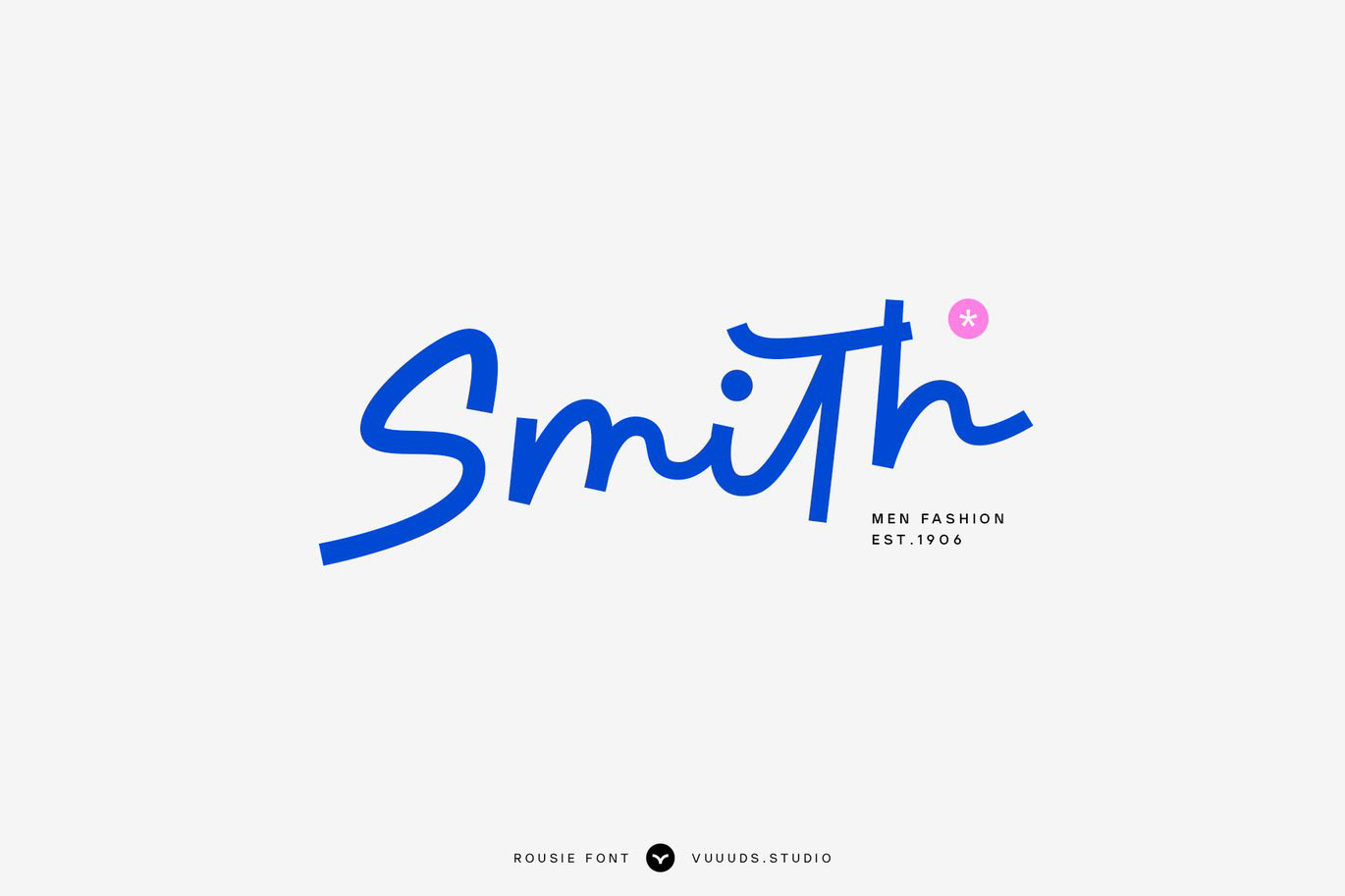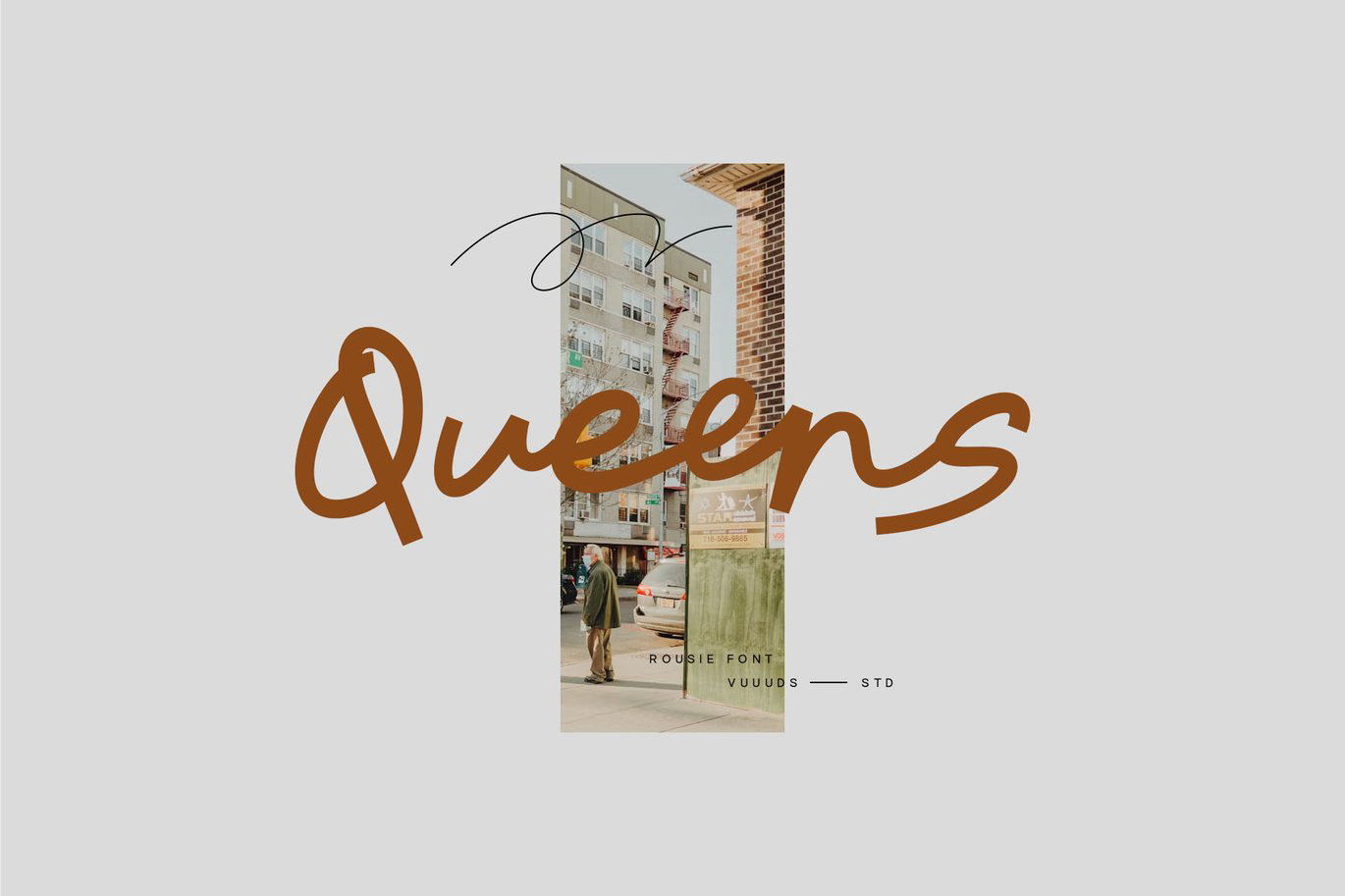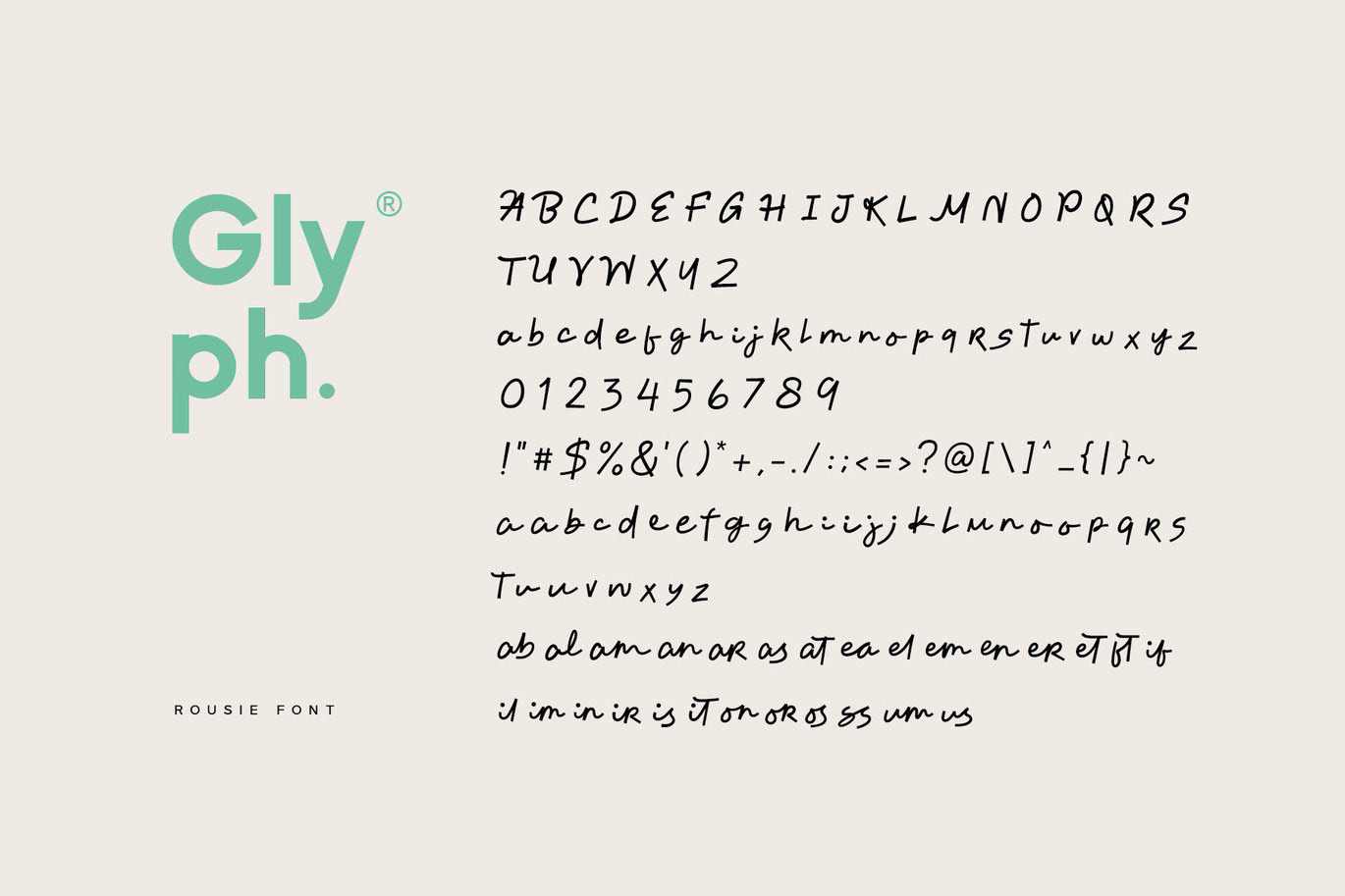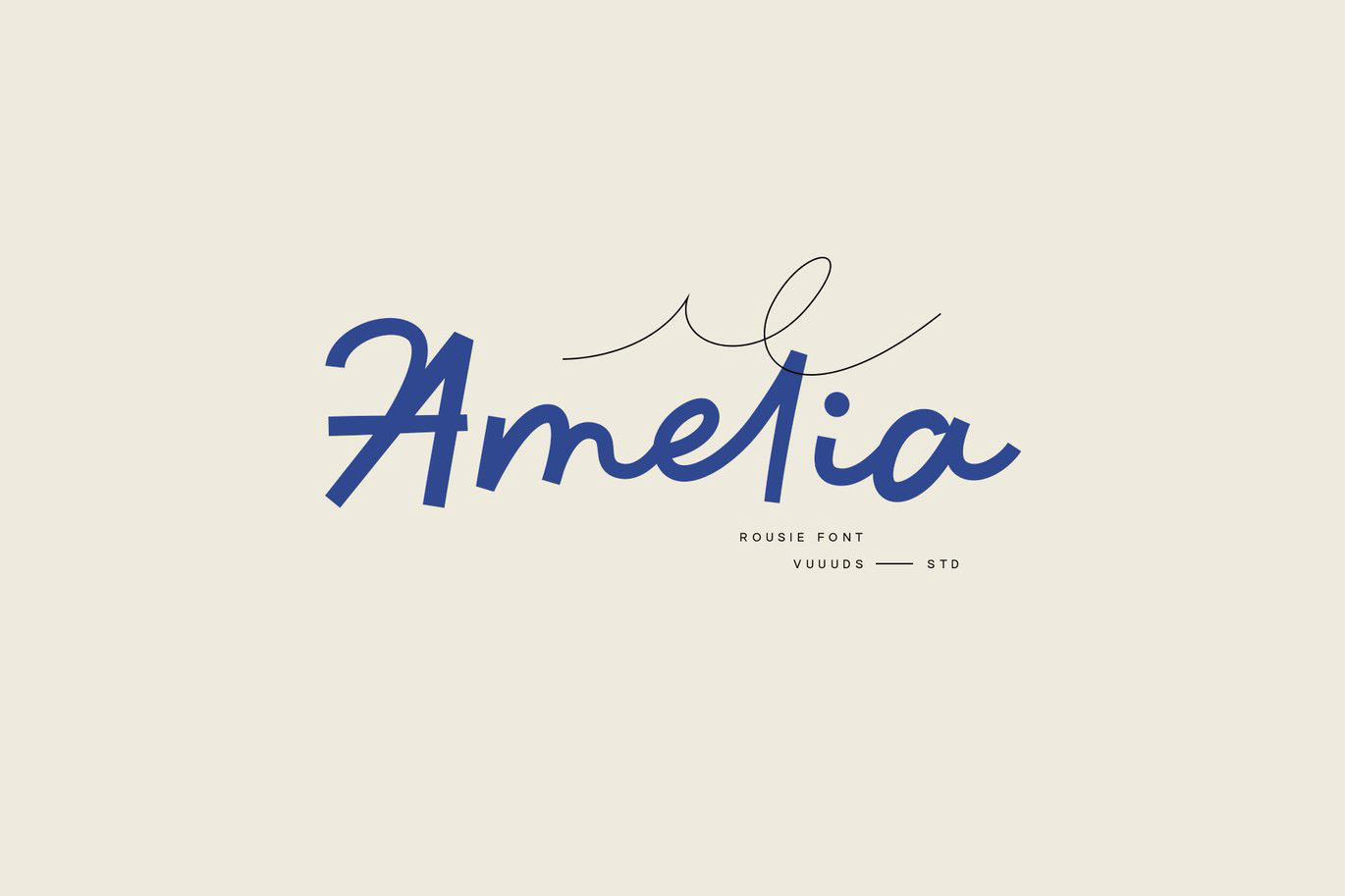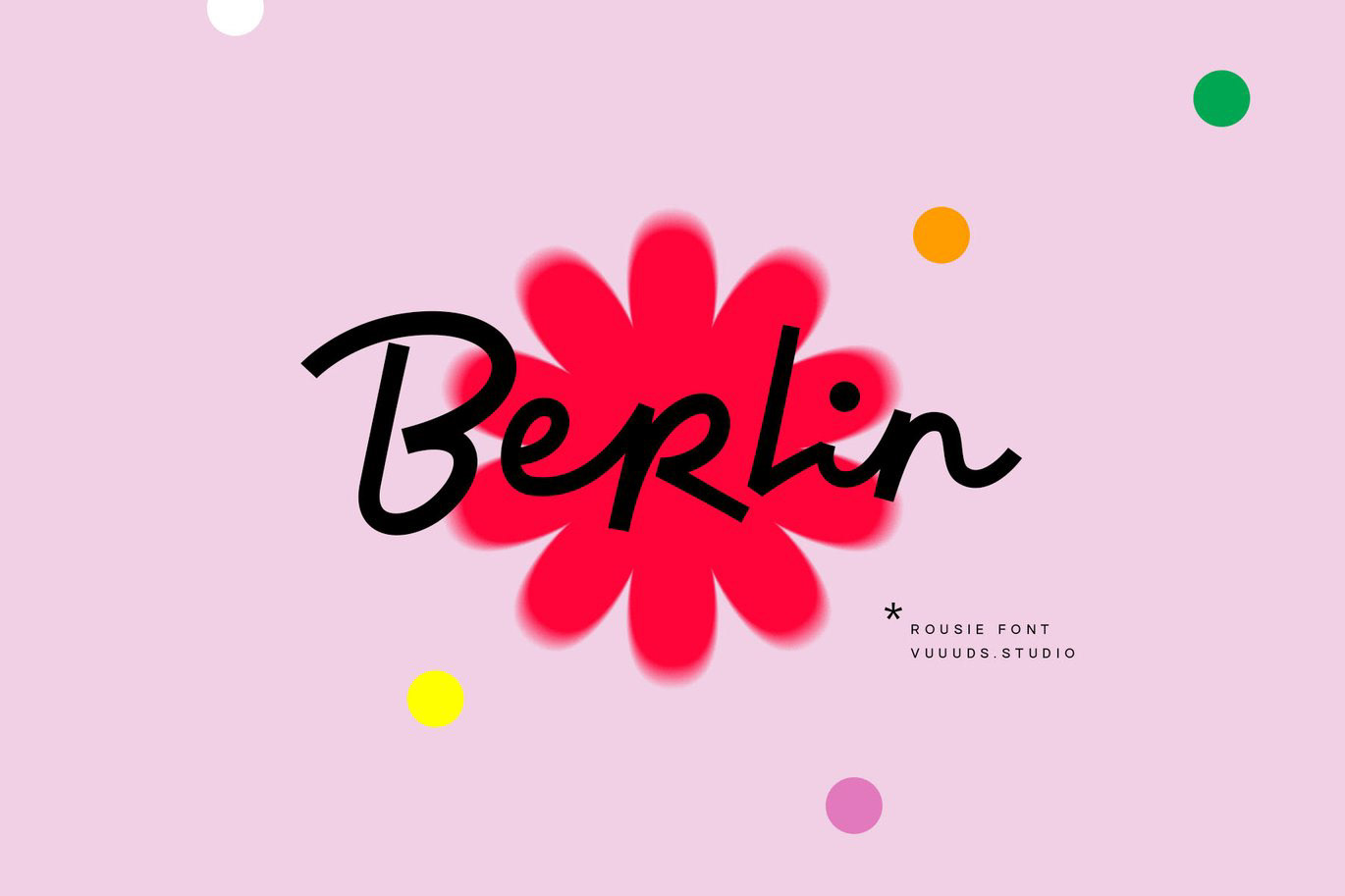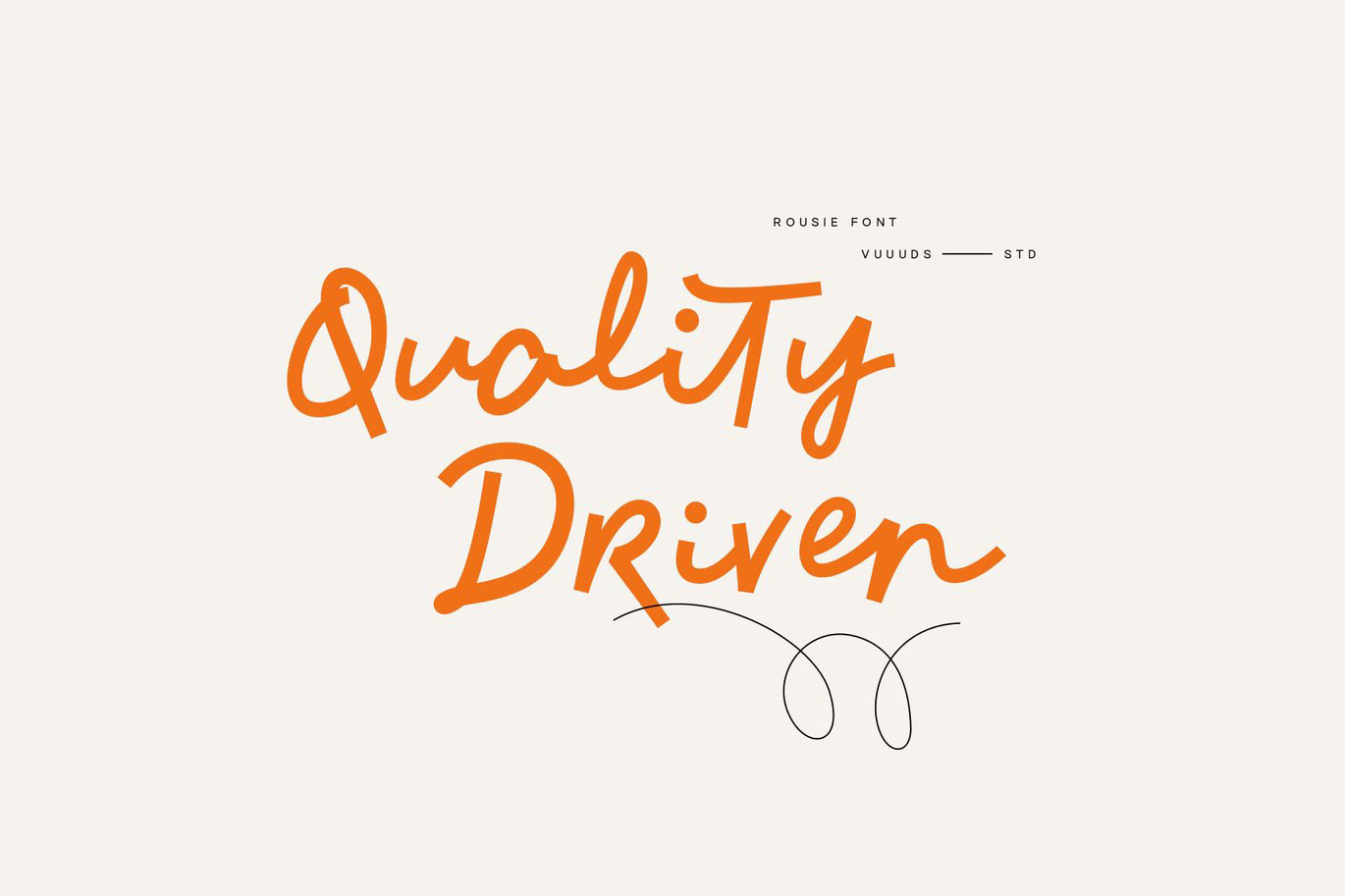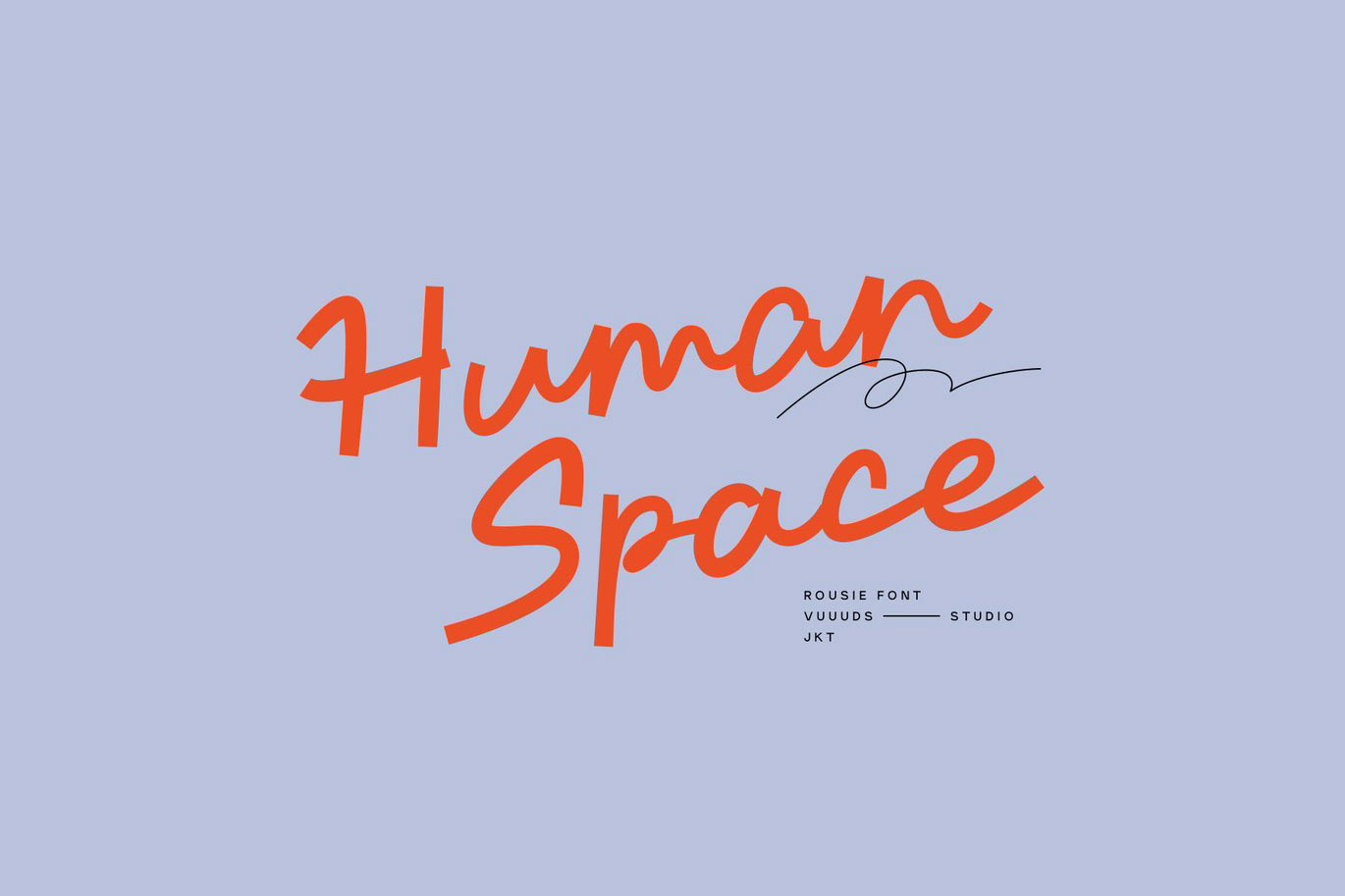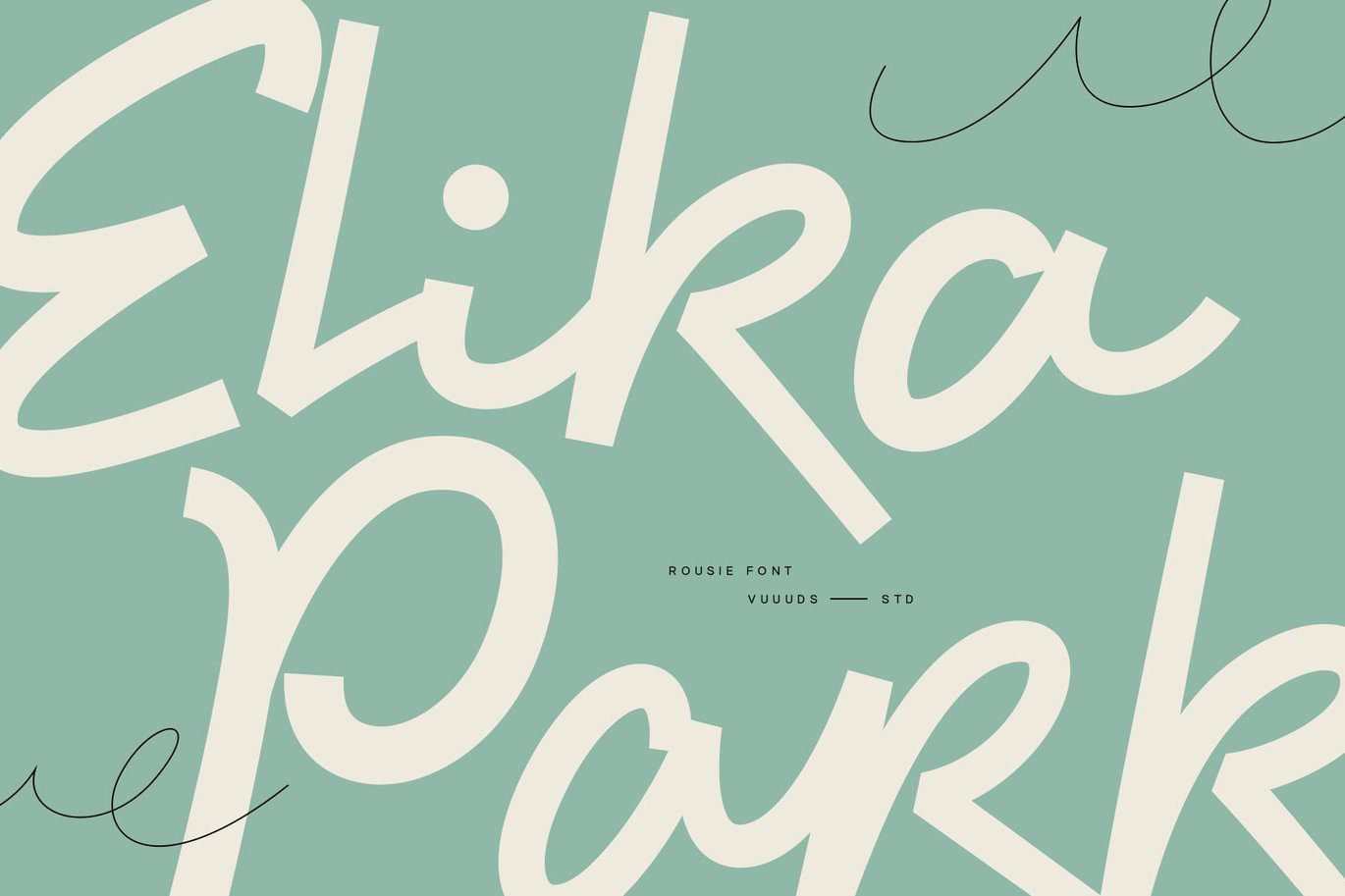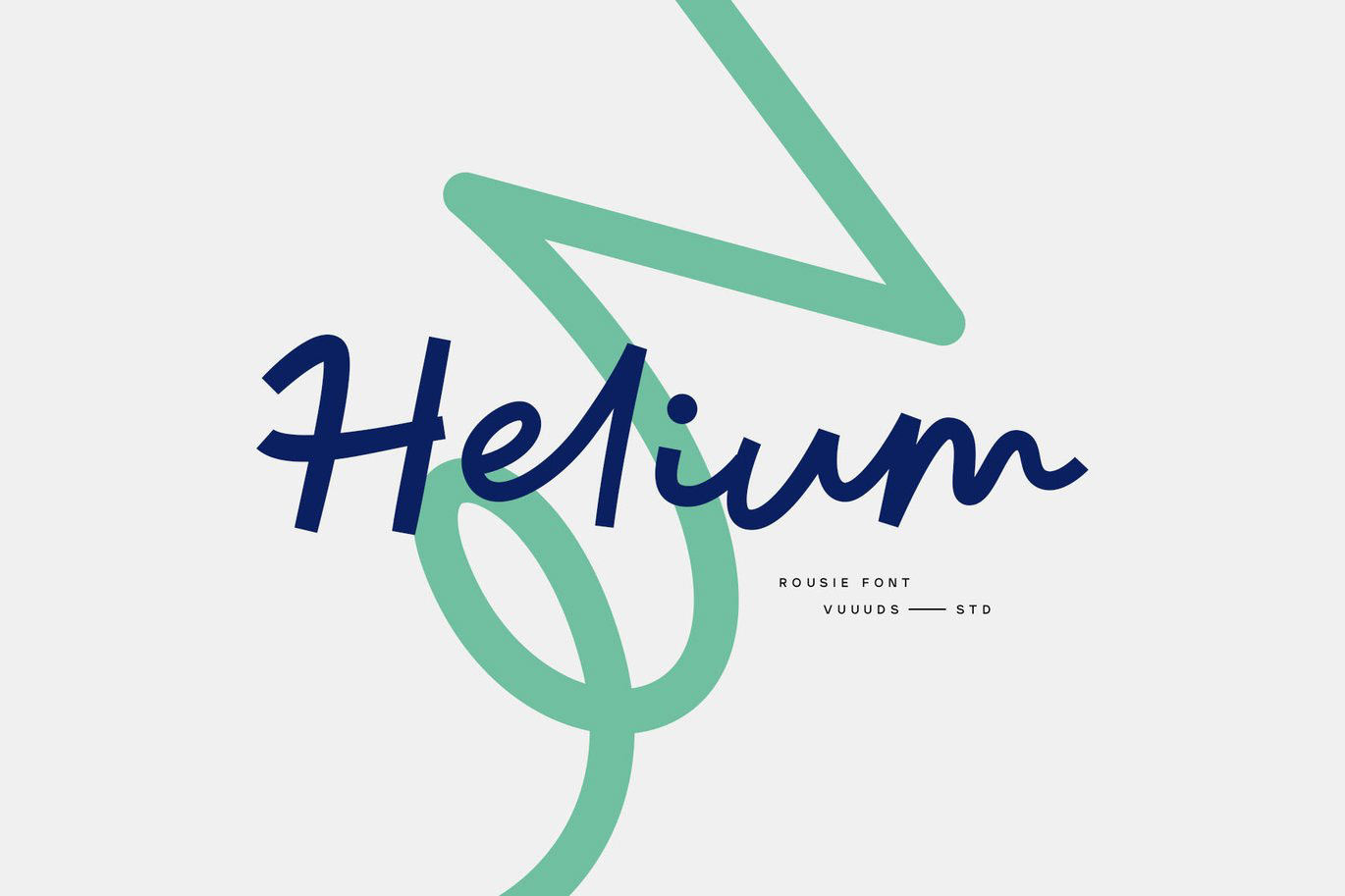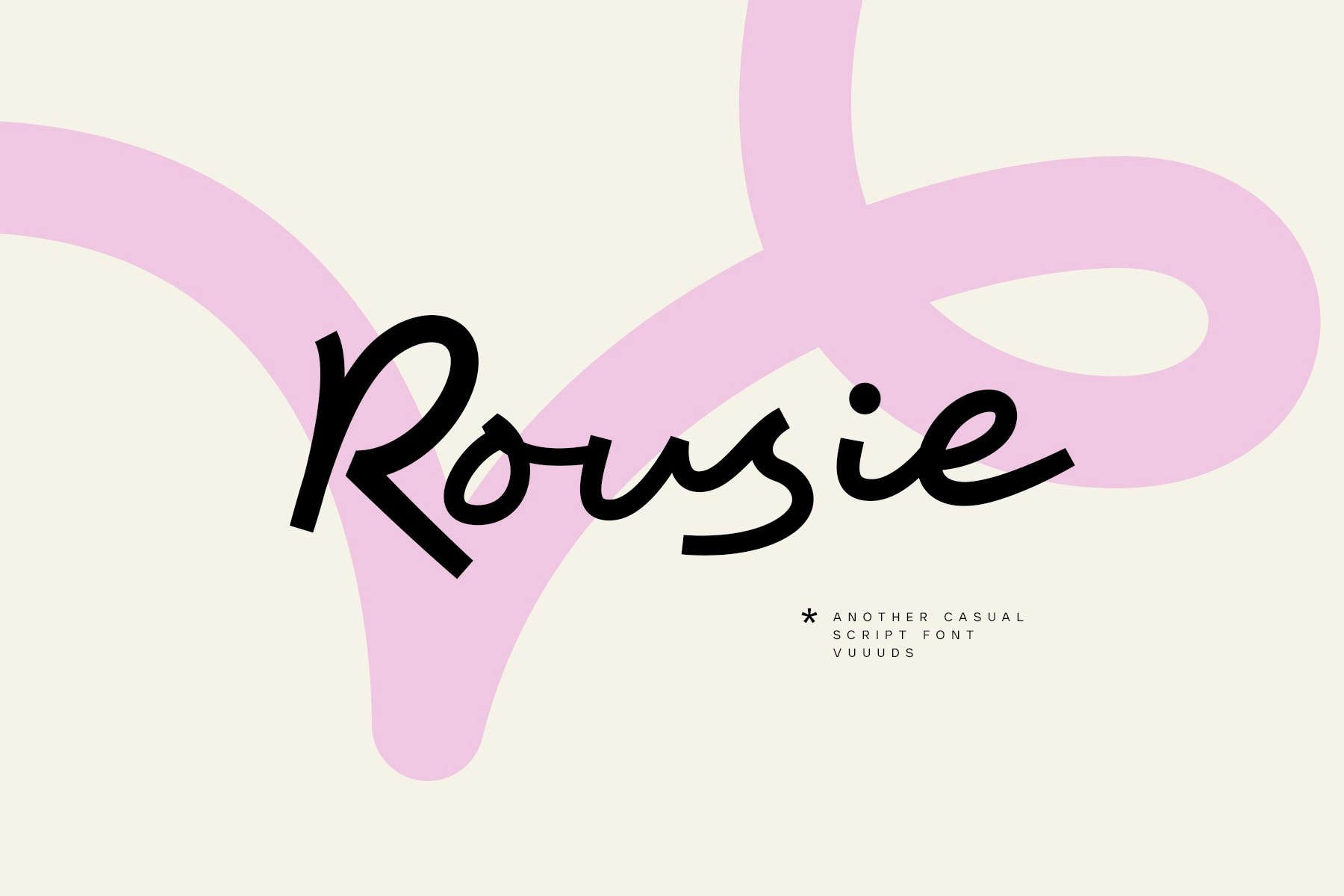
Rousie - Modern Script Font
Crafted with a handwritten flow, this font combines smooth curves and playful strokes for a natural, expressive character. The letterforms balance casual rhythm with refined spacing, making it versatile for modern branding. Its organic structure enhances readability while preserving a creative, personal touch across applications.